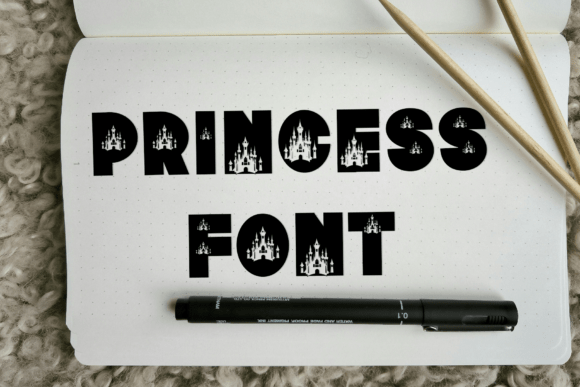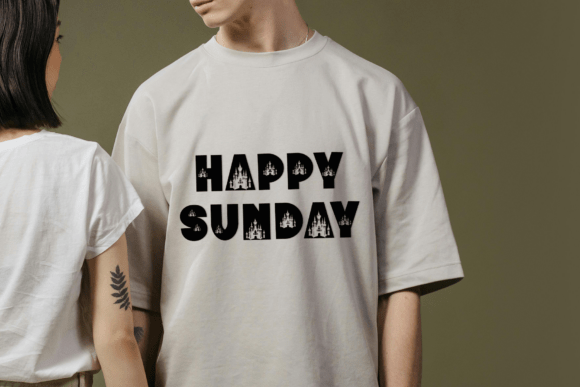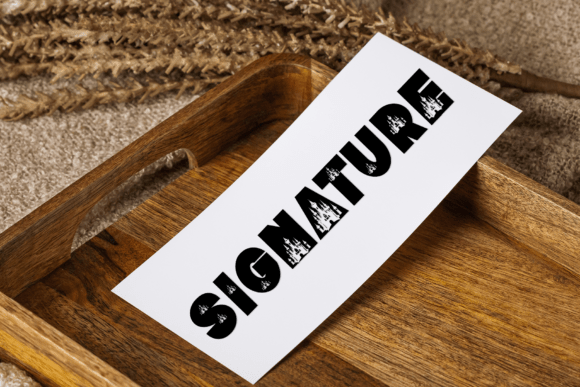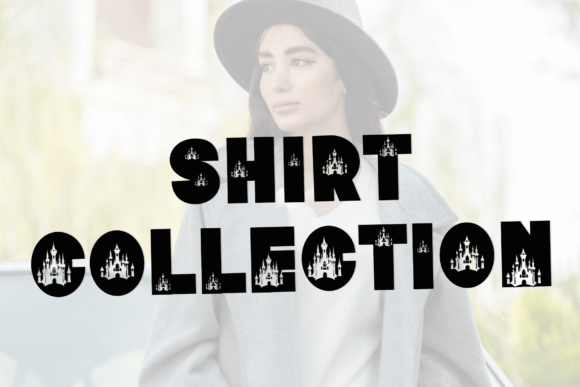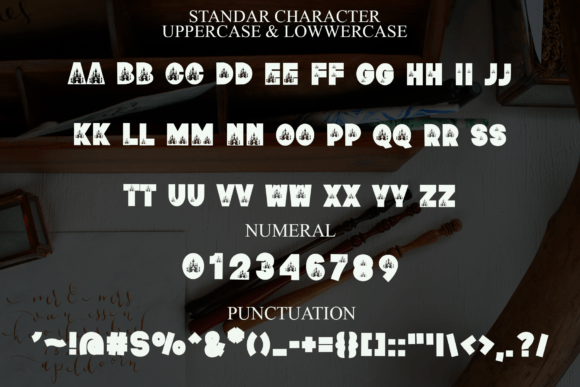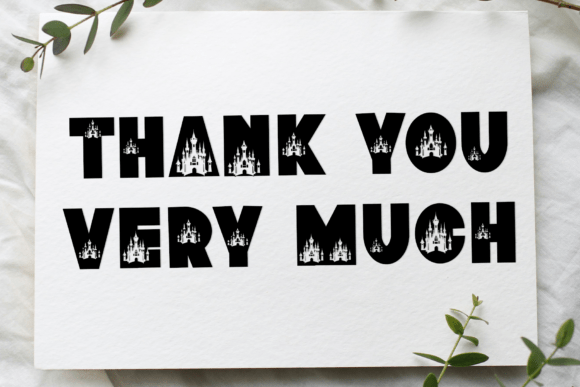
Disney Castle Font: Bring Magic to Your Designs
Are you looking for a font that can add a touch of magic to your designs? Look no further than the Disney Castle Font. This bold display font features enchanting castle silhouettes inside every letter, making it perfect for themed invitations, fantasy branding, or children’s projects. In this article, we’ll take a closer look at the Disney Castle Font and how you can use it to bring a fairytale feel to your designs.
What is Disney Castle Font?
The Disney Castle Font is a unique and eye-catching font that features intricate castle silhouettes inside every letter. The font is inspired by the iconic Disney castle and is designed to evoke a sense of wonder and enchantment. The font is perfect for designers and crafters who want to add a touch of magic to their projects.
Key Features of Disney Castle Font
- Enchanting Castle Silhouettes: The font features intricate castle silhouettes inside every letter, making it perfect for themed designs.
- Bold Display Font: The font is designed as a bold display font, making it perfect for headlines and titles.
- Perfect for Themed Invitations: The font is perfect for creating themed invitations for parties, weddings, and other special events.
- Fantasy Branding: The font is also perfect for fantasy branding, including logos, packaging, and marketing materials.
- Children’s Projects: The font is perfect for children’s projects, including books, games, and educational materials.
How to Use Disney Castle Font
The Disney Castle Font is easy to use and can be incorporated into a variety of design projects. Here are a few ideas to get you started:
- Themed Invitations: Use the font to create themed invitations for parties, weddings, and other special events.
- Fantasy Branding: Use the font to create fantasy-themed logos, packaging, and marketing materials.
- Children’s Projects: Use the font to create children’s books, games, and educational materials.
- Social Media Graphics: Use the font to create social media graphics, including Facebook posts, Instagram stories, and Twitter headers.
Tips and Tricks for Using Disney Castle Font
Here are a few tips and tricks for using the Disney Castle Font:
- Use it Sparingly: Because the font is bold and eye-catching, it’s best to use it sparingly. Use it for headlines and titles, and a simpler font for body text.
- Experiment with Colors: The font looks great in a variety of colors, so don’t be afraid to experiment. Try using bright and bold colors to add an extra touch of magic to your designs.
- Pair it with Other Fonts: The Disney Castle Font pairs well with a variety of other fonts, including script fonts, serif fonts, and sans-serif fonts.
The Disney Castle Font is a unique and eye-catching font that can add a touch of magic to your designs. With its enchanting castle silhouettes and bold display font, it’s perfect for themed invitations, fantasy branding, or children’s projects. By following the tips and tricks outlined in this article, you can use the Disney Castle Font to create designs that are sure to delight and inspire.